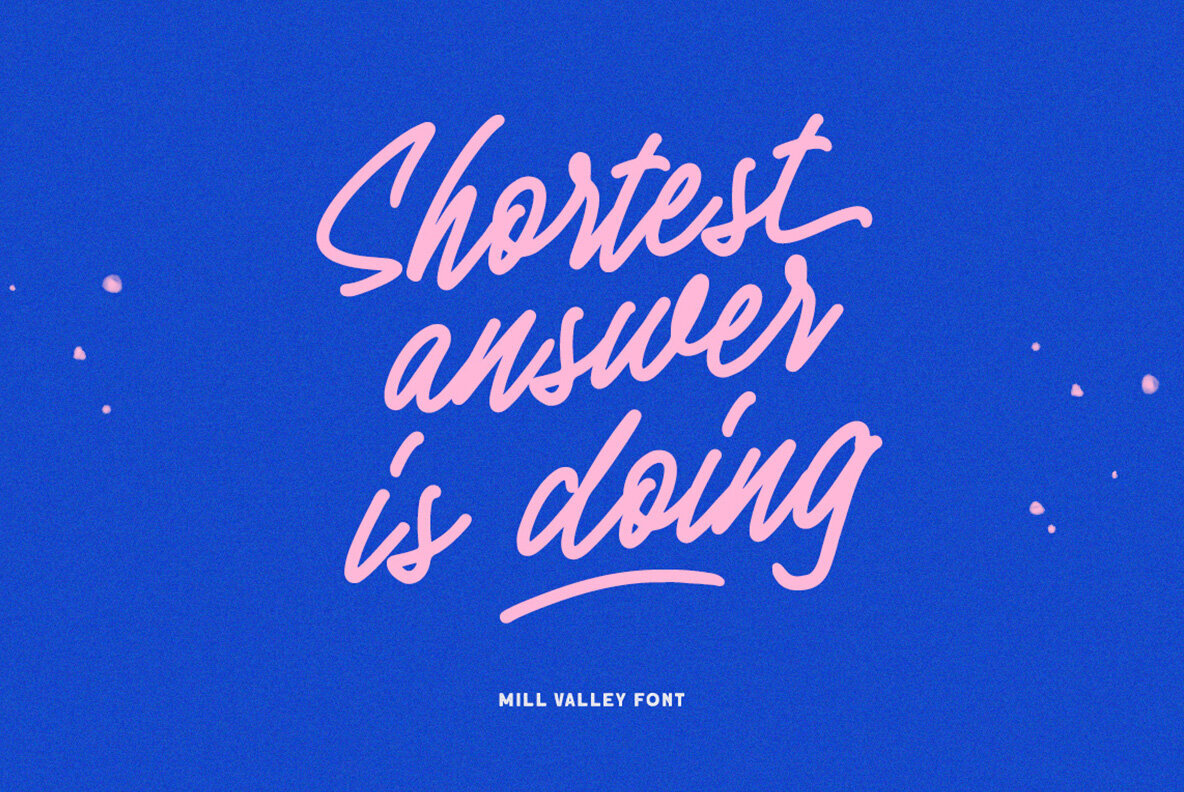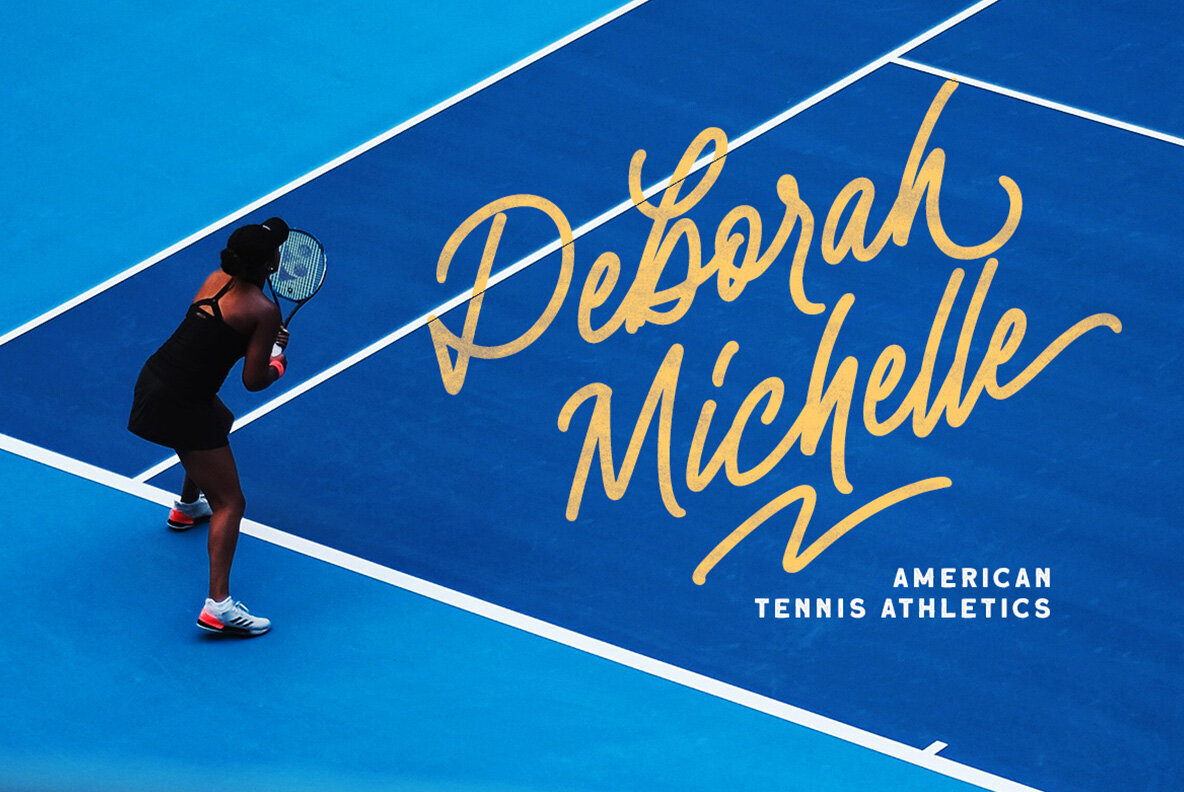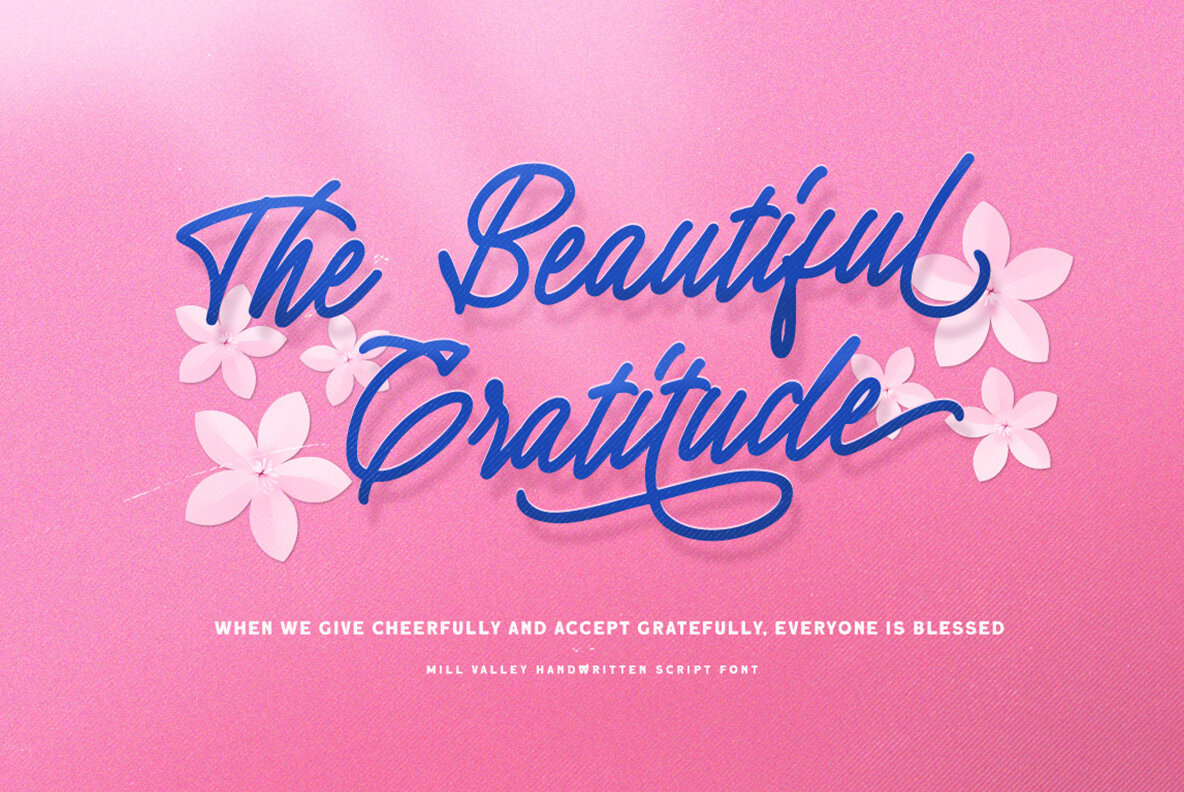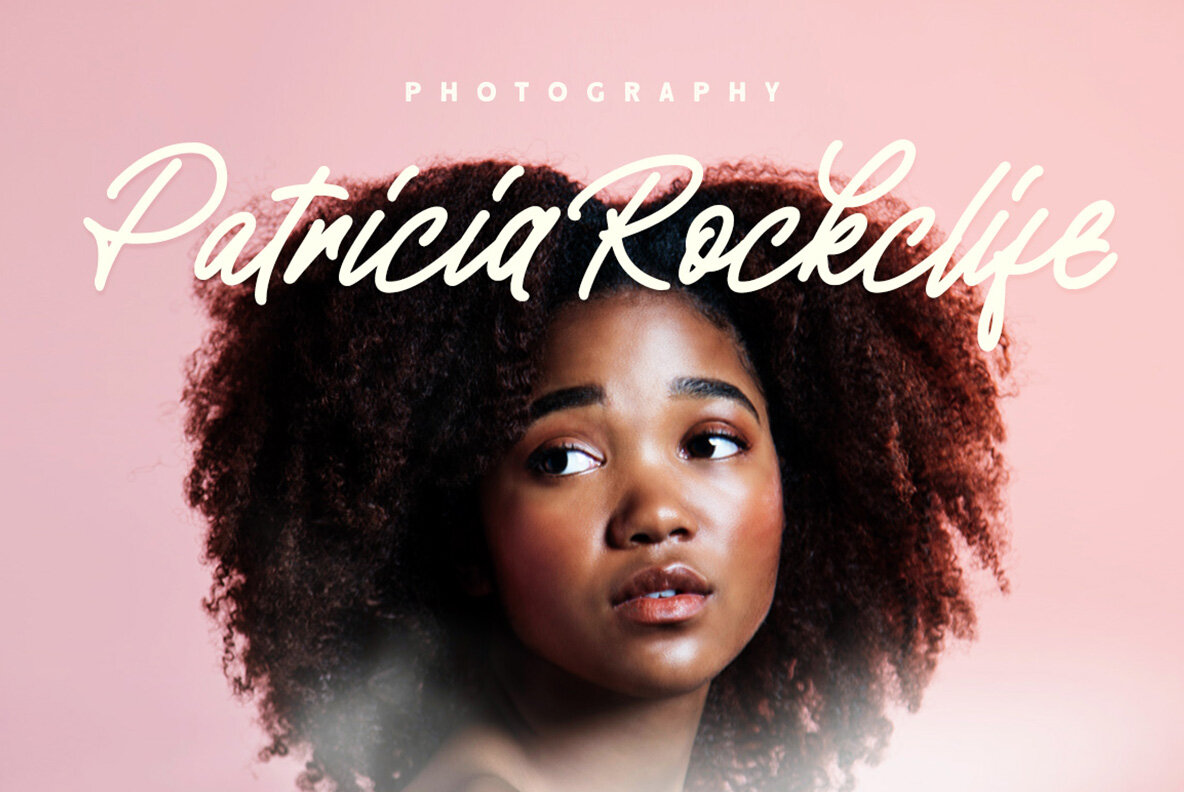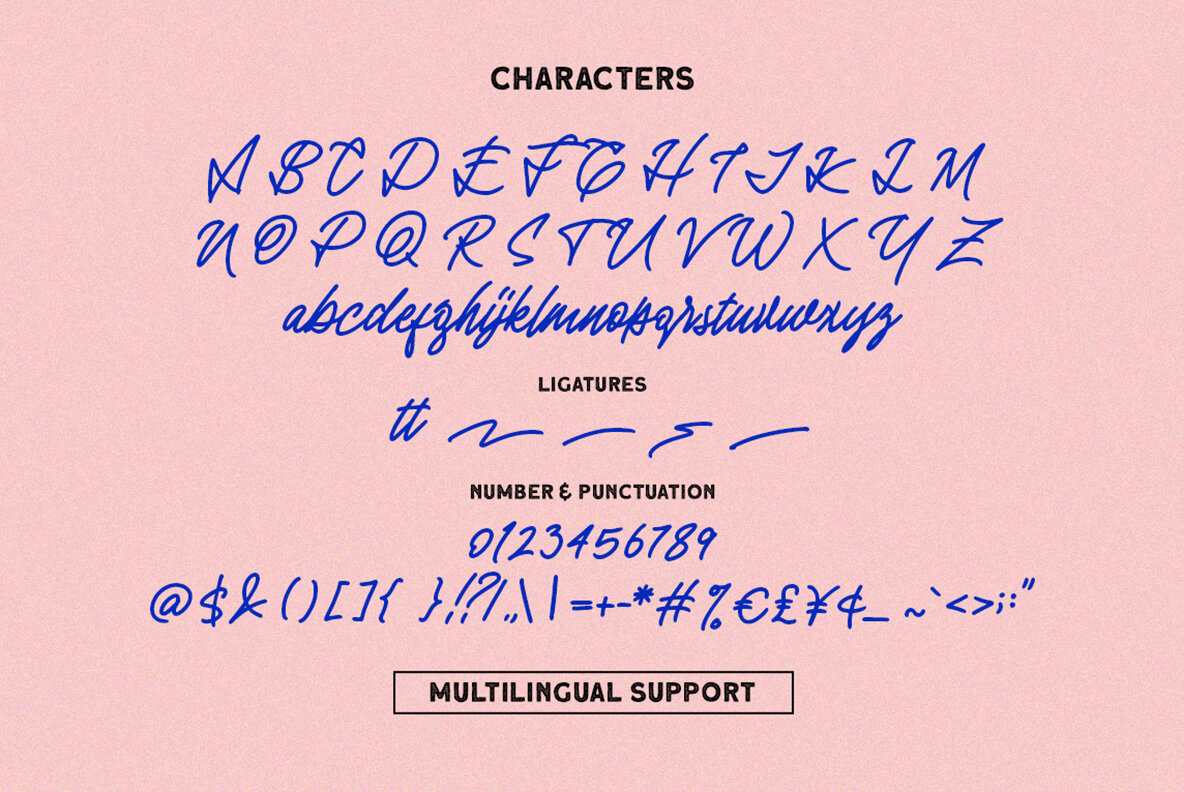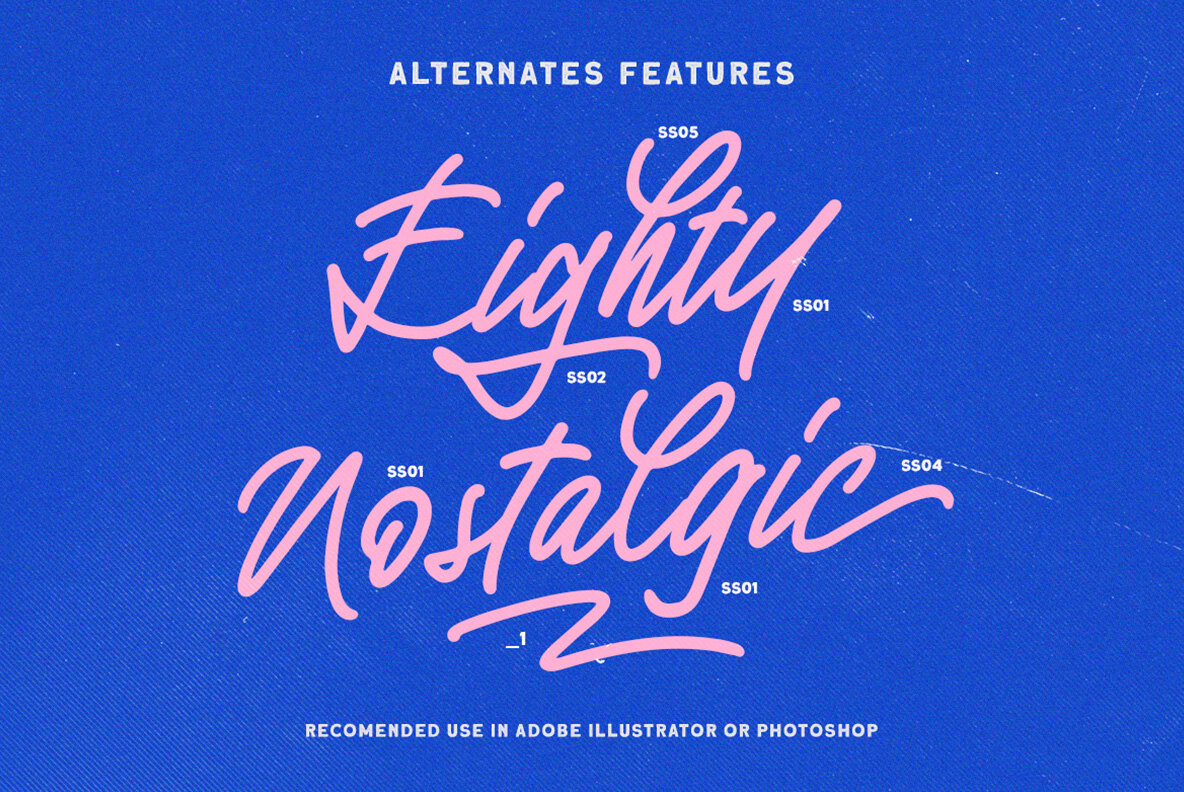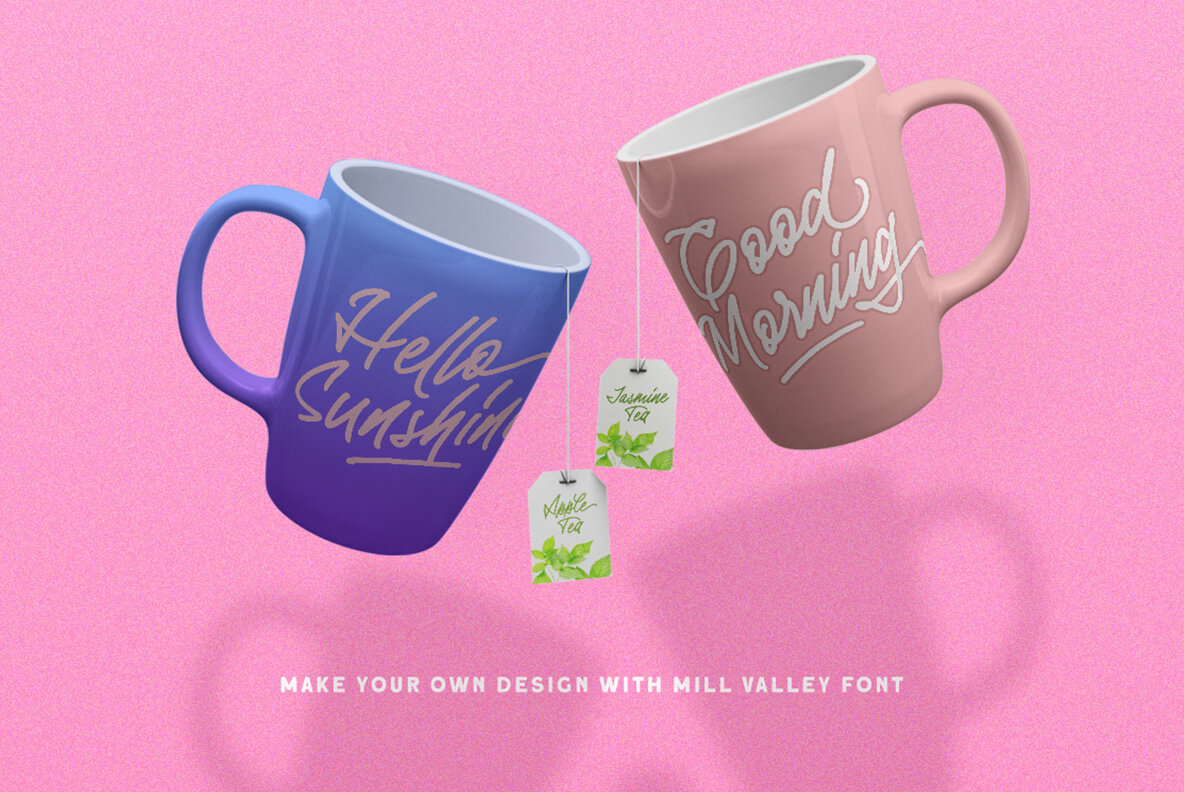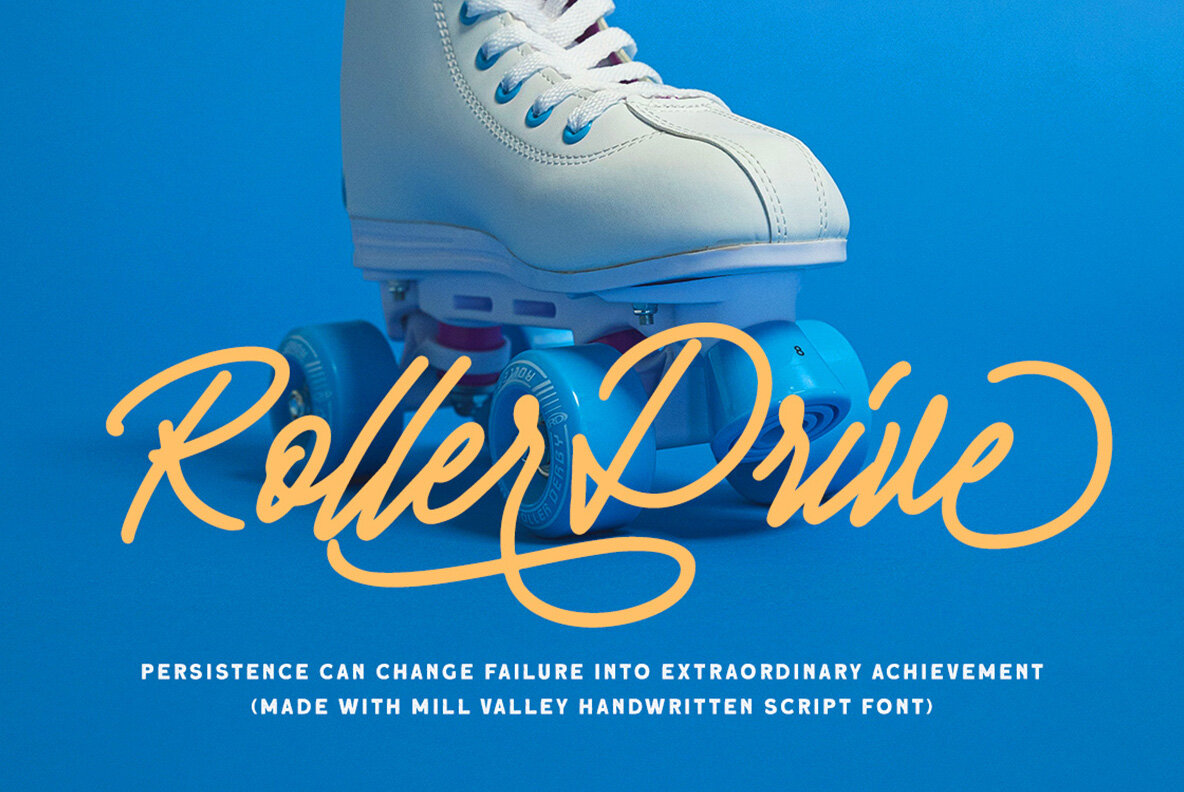
Mill Valley Font
Mill Valley Regular
Mill Valley offers a delightful blend of fun and formality with its casual monoline script design. This font is ideal for infusing a touch of personality into your creative projects, particularly logos, headlines, and signage. It's versatile enough for formal applications, from invitations and labels to packaging and magazines, ensuring a cohesive aesthetic across diverse channels. To fully experience the varied Glyphs and OpenType features, utilize Adobe apps or Corel Draw, which support these functionalities. For a detailed guide, visit: ....Mill Valley: Casual Monoline Script